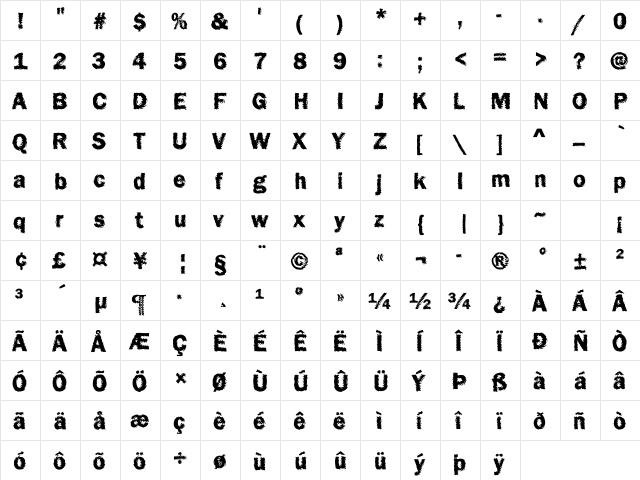
DTCFunkyM21 Regular Font Preview
DTCFunkyM21 Regular
DTCFunkyM21 Regular Font Details
Design Context for DTCFunkyM21 Typeface
DTCFunkyM21 has an approachable, lighthearted character — its loose, expressive forms are well-suited to children's content, casual branding, and fun-first design.
Font Pairing: Pairs well with a rounded or humanist sans for body copy, maintaining the friendly tone without relying on DTCFunkyM21 to carry extended reading.
Pro Tip: Avoid using DTCFunkyM21 for long passages of text — it works best for headlines, labels, and short calls to action.